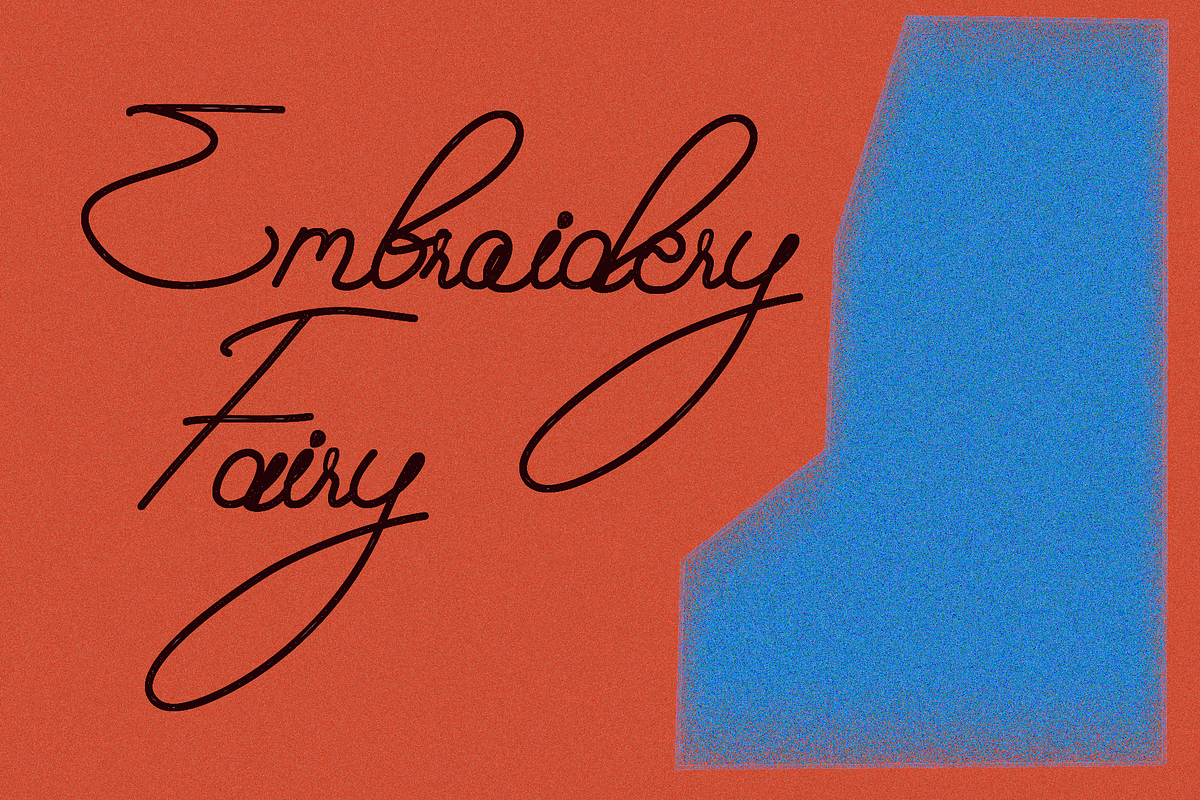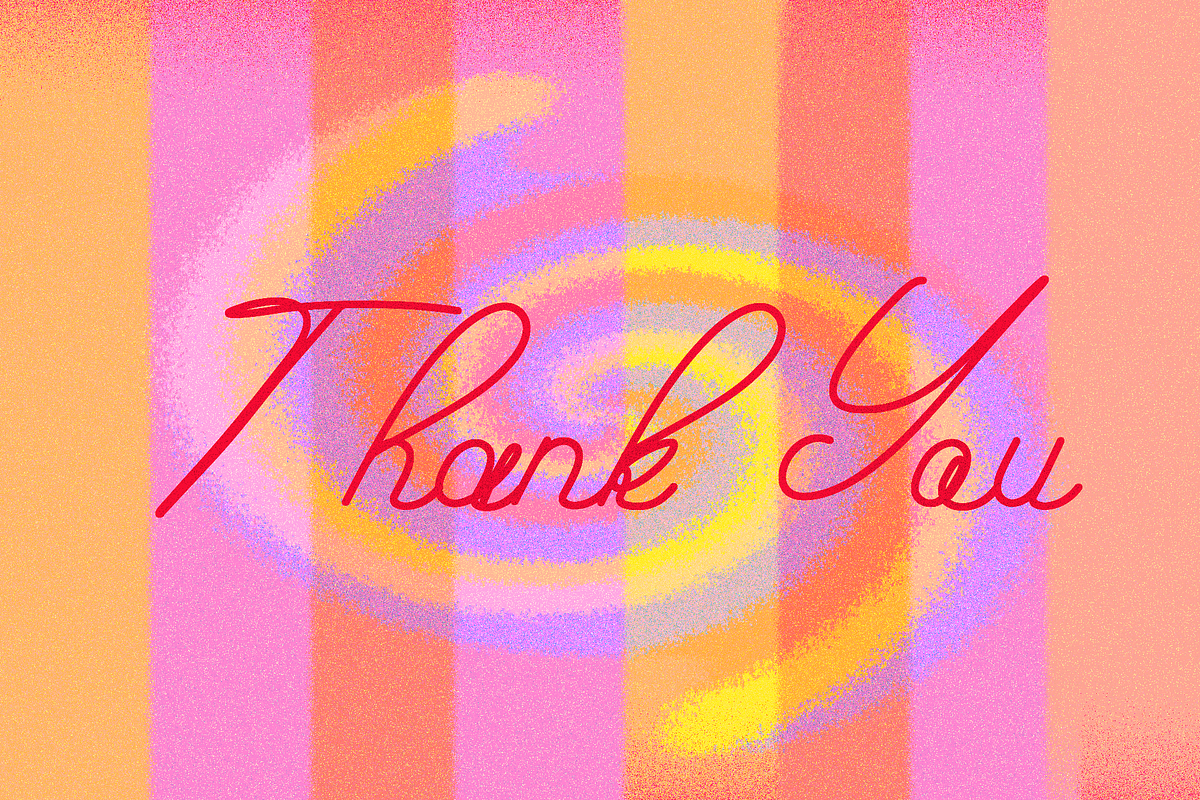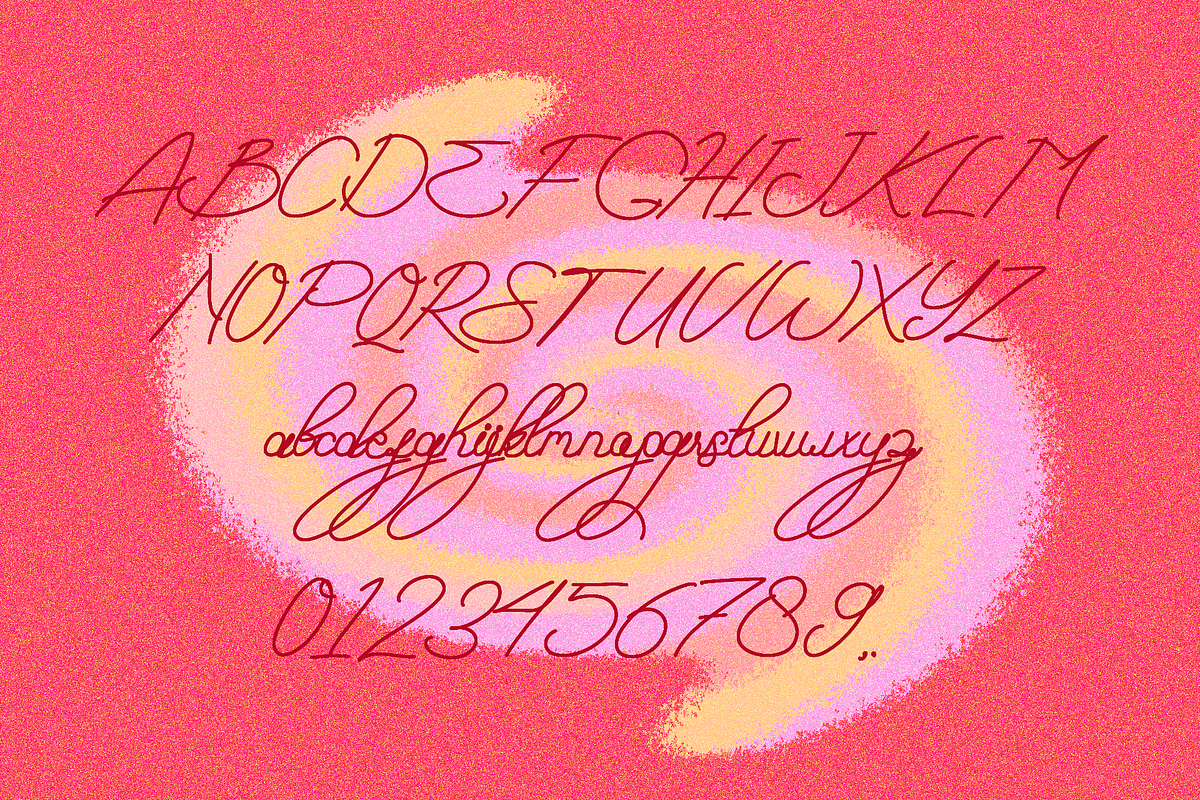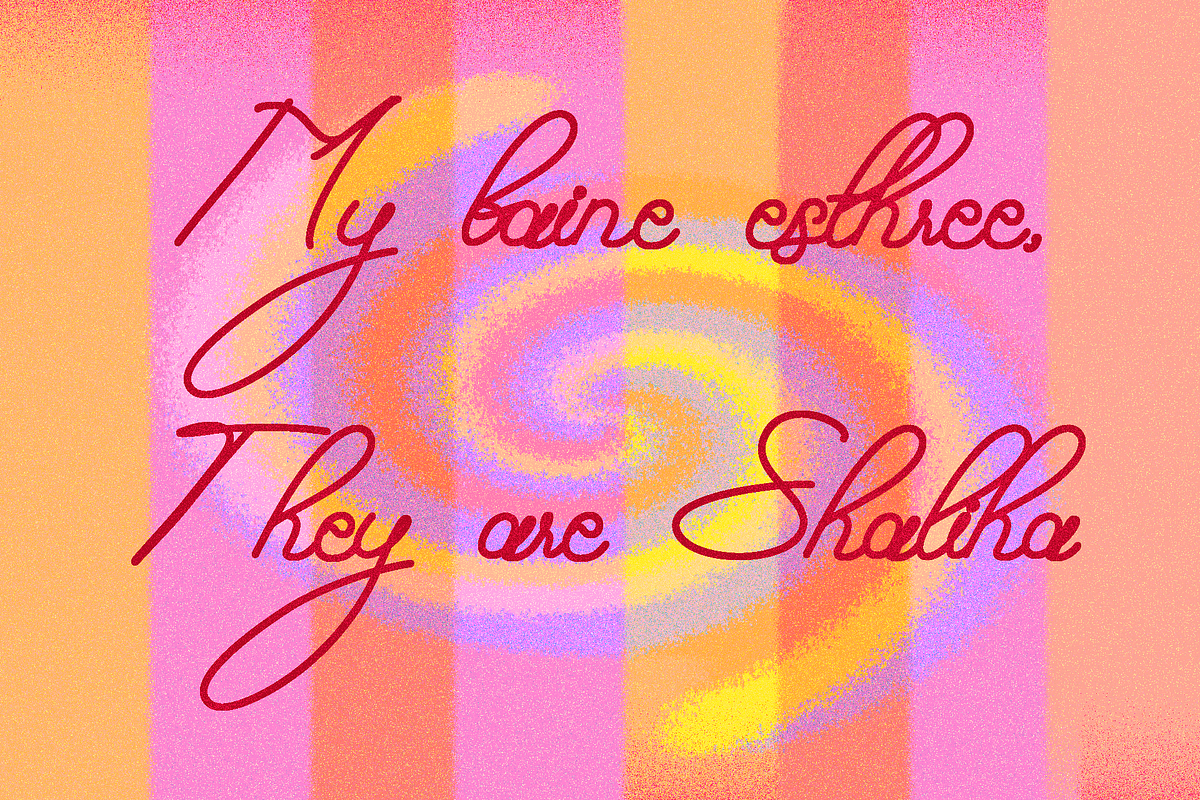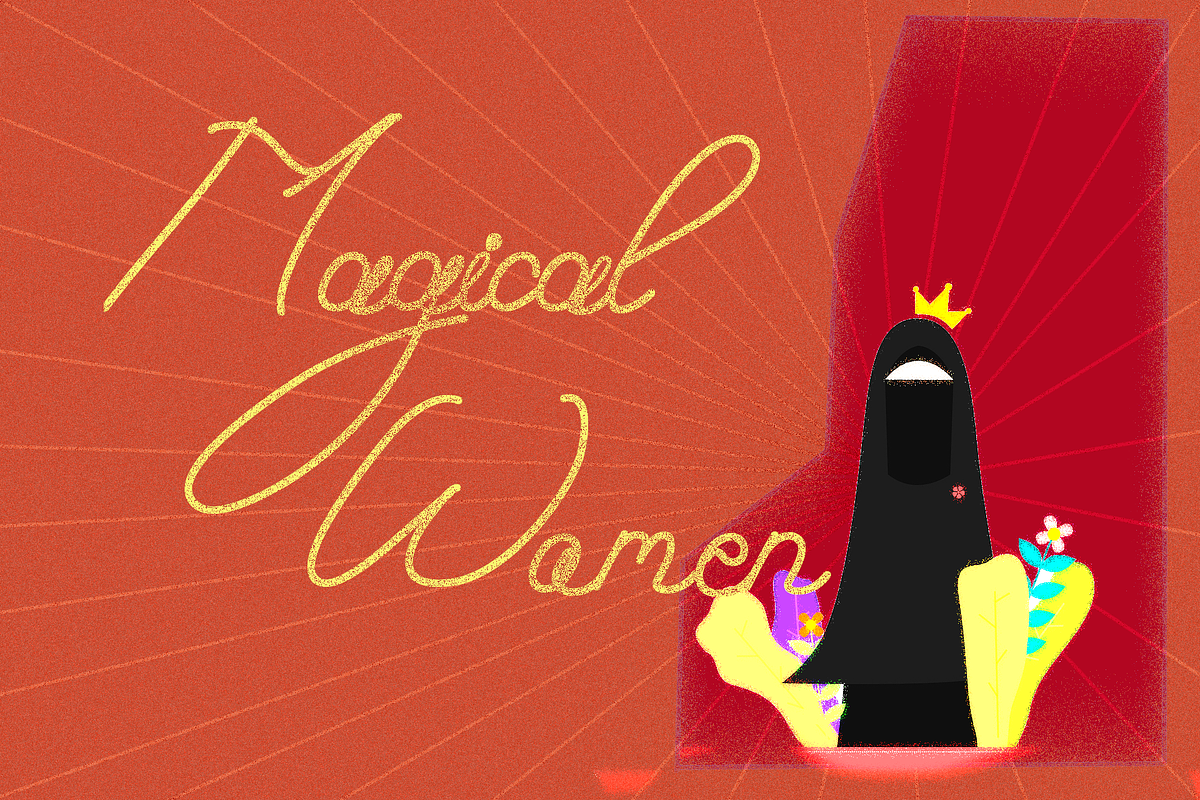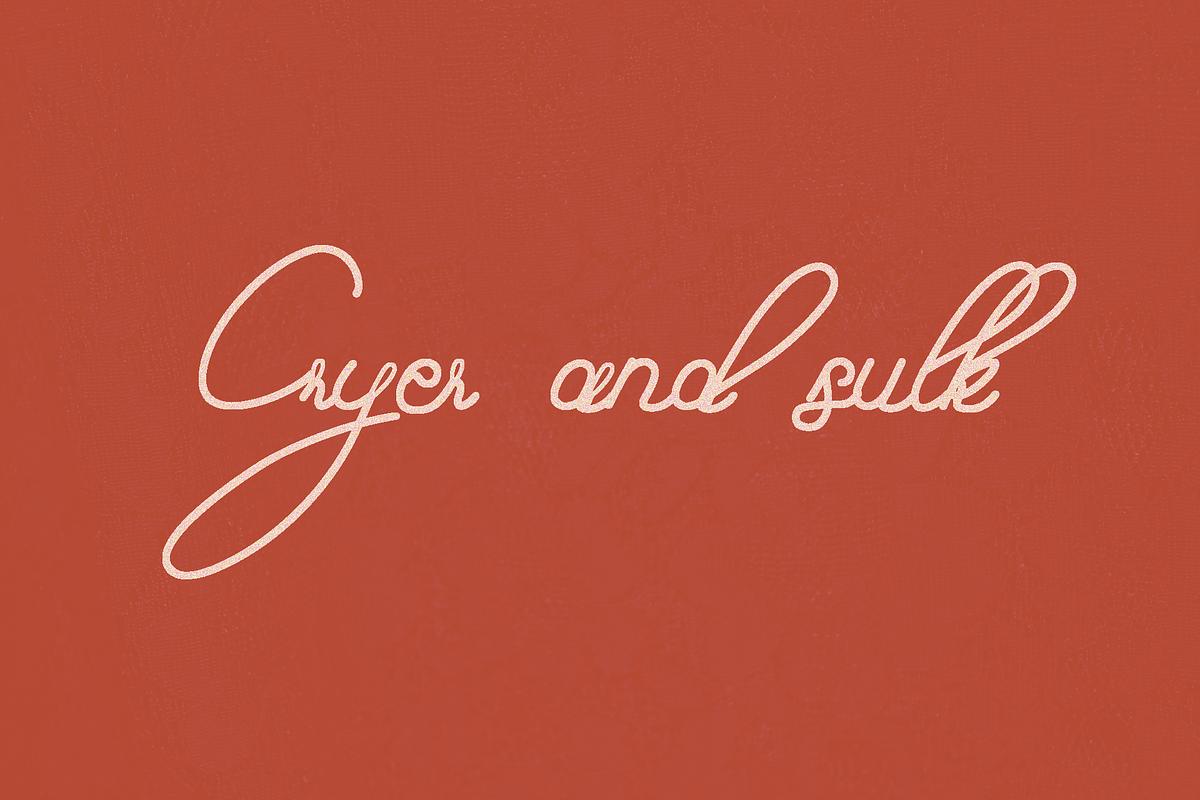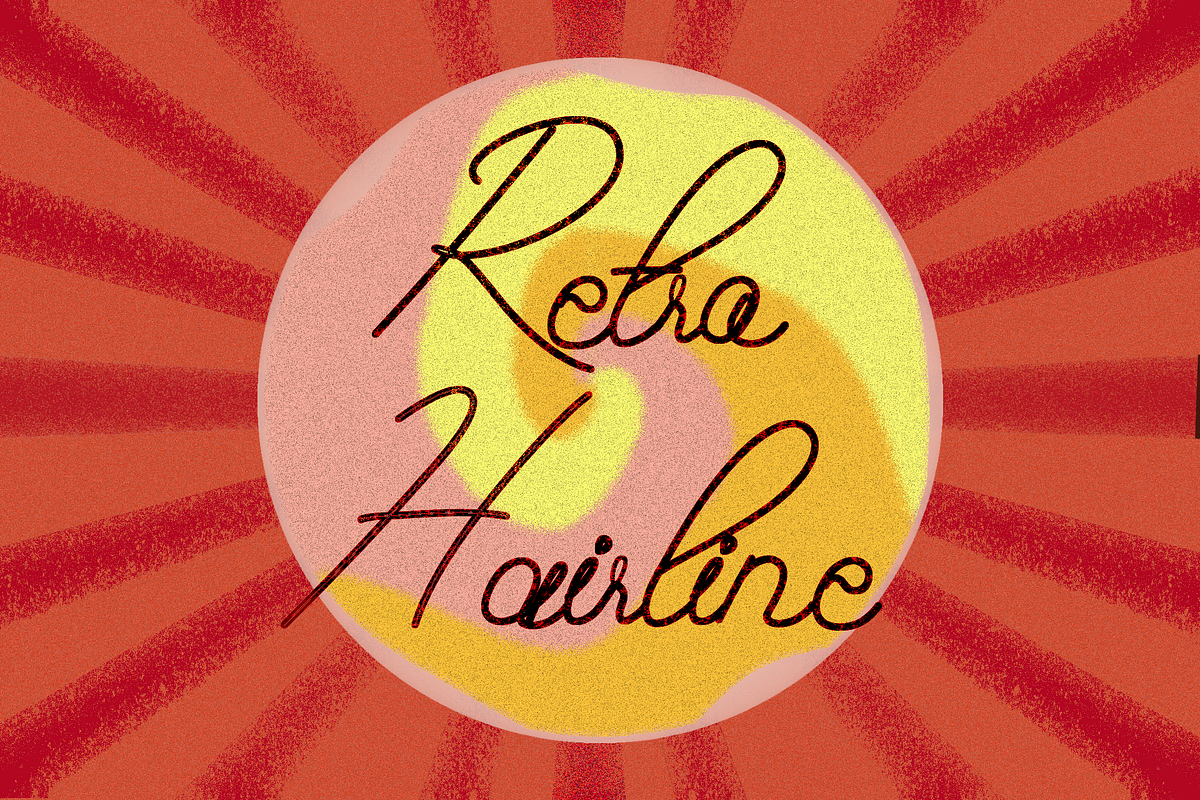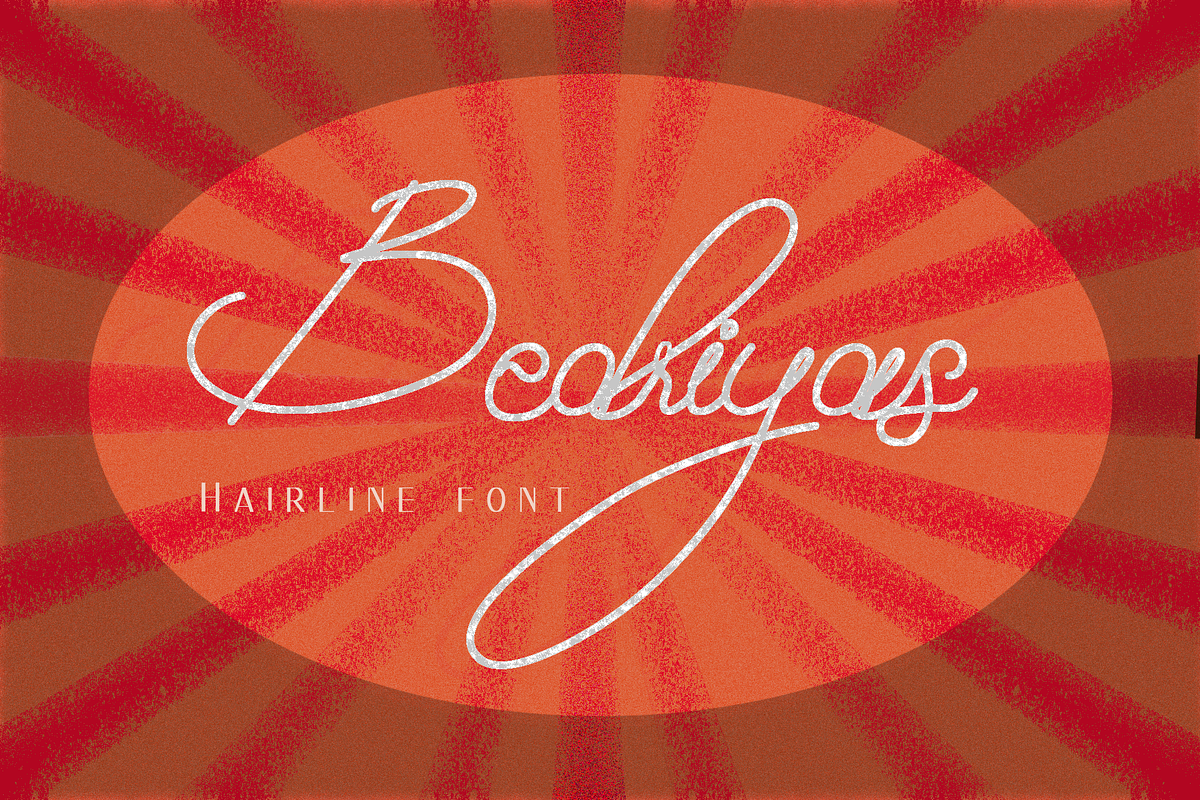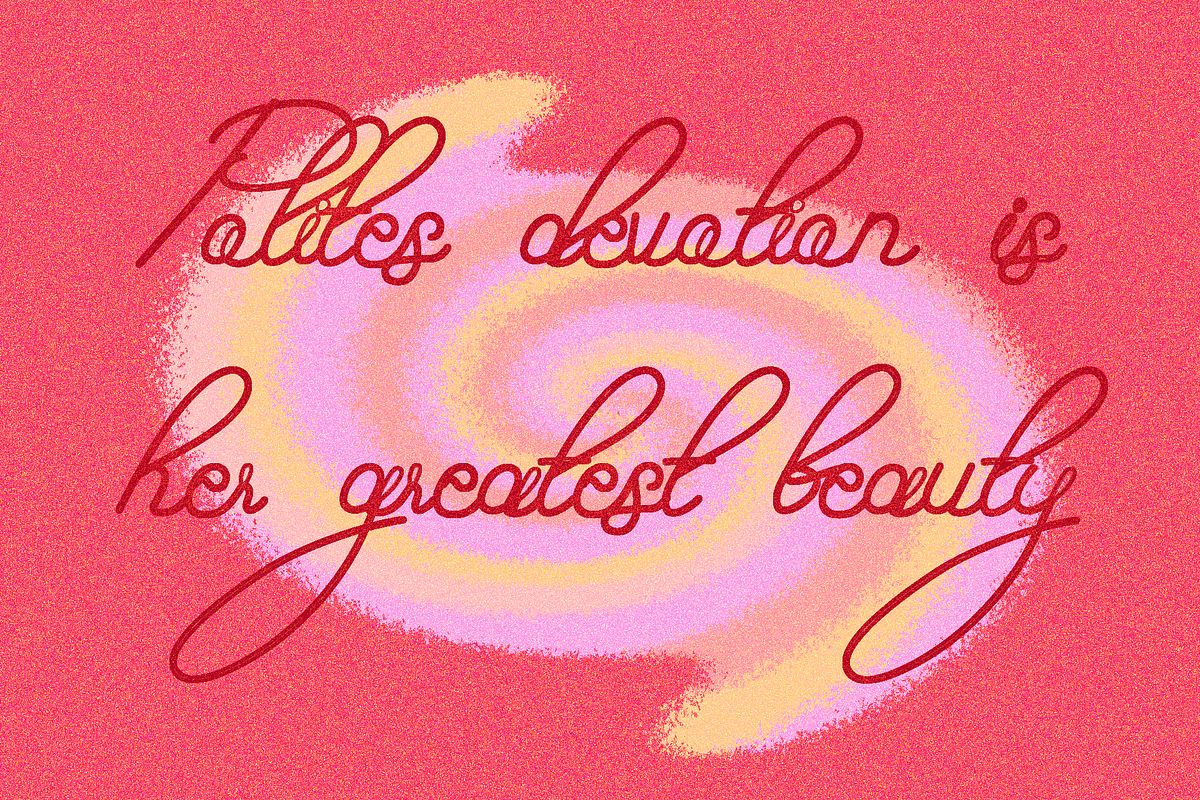
Bedriyas hairline font
Bedriyas is a beautiful, monoline font that will add a ton of charm and style to your works. This is a clean calligraphy font and excels as the focal point to your work. it is a stunning monoline font, ideal for use in fashion and other stylish industries. This simple, handwritten cursive font will add tons of style and elegance to your projects. this is a dainty and flowing handwritten font. Sweet and joyful, this font will be ideal for writing wedding invitations, cards or any other design that may need a romantic, personalized touch! it is a modern monoline font featuring a single-line style. It’s perfect for crafting, photography, watermarking, social media posts, advertisements, logos & branding, invitations, product designs, labels, stationery, product packaging, and special events.